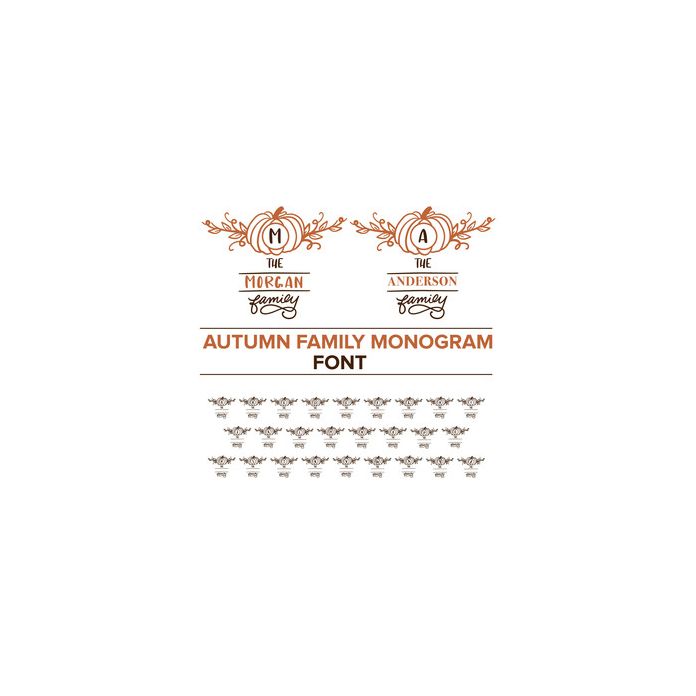
This dingbat font comes in OTF format. Each letter, A-Z and a-z, coordinates with a monogram set. You can use the monogram letters to create your family's name or use a font that's on your computer.